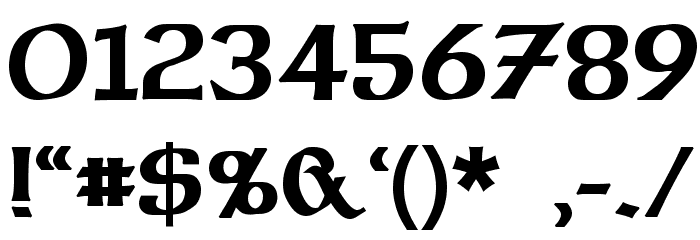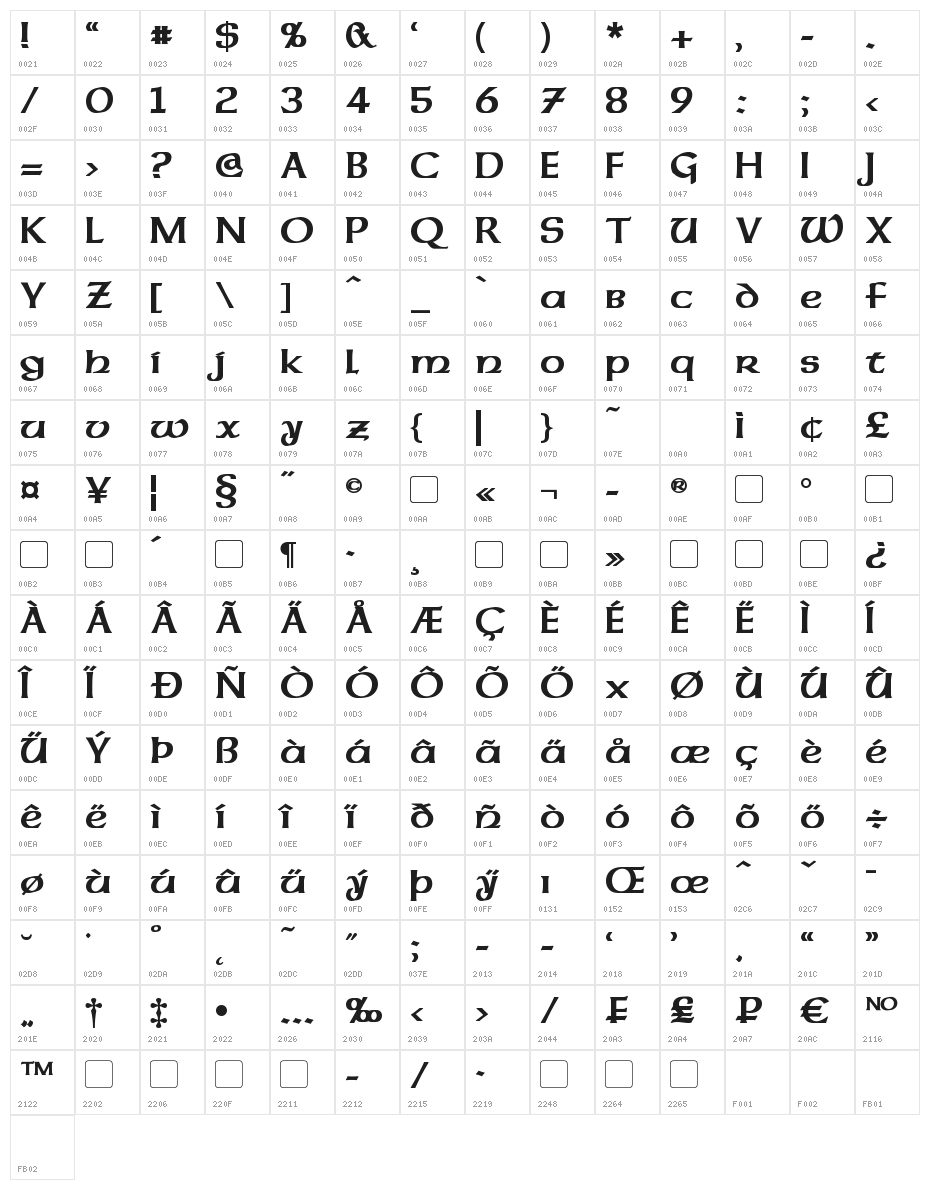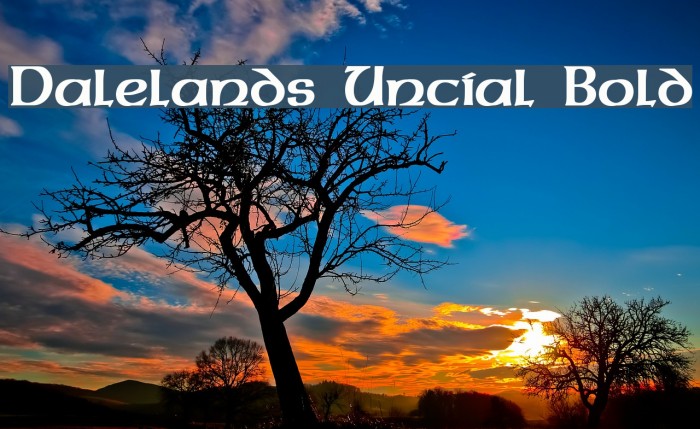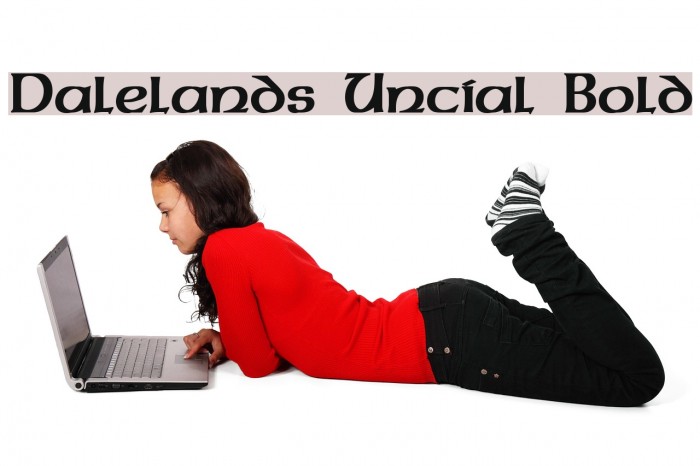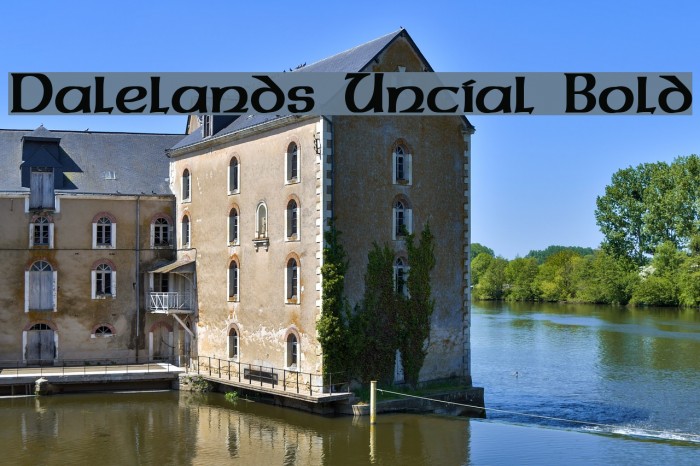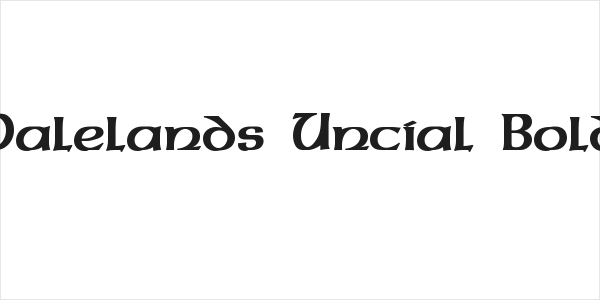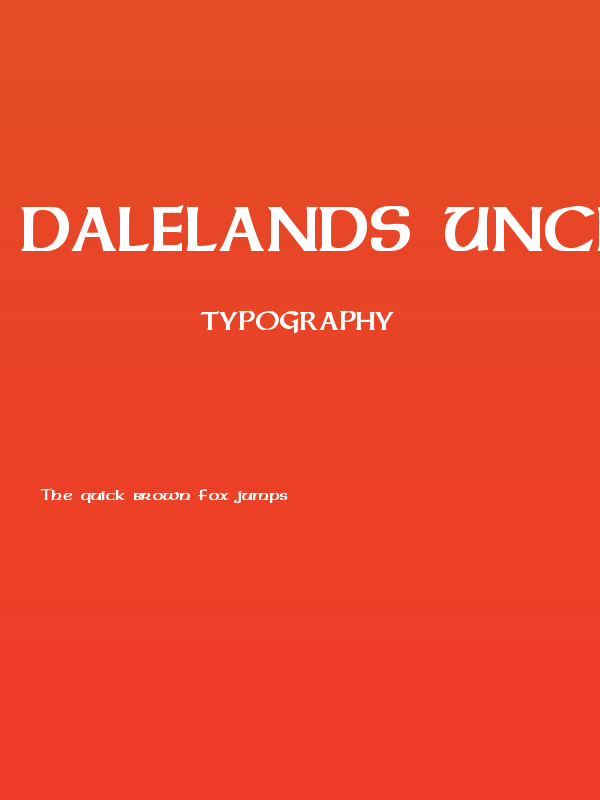
Dalelands Uncial Bold Font
Dalelands Uncial Bold Description
This font exhibits a bold and striking uncial style, reminiscent of medieval script with a modern twist. The characters are characterized by their rounded forms and distinctively sharp serifs, giving them a unique and decorative appearance. The uppercase letters are particularly bold, with a strong presence that commands attention. The lowercase letters maintain the same stylistic elements, ensuring consistency across the typeface. Numbers and special characters are designed to match the overall aesthetic, making them suitable for a variety of uses. The font's design is both historical and contemporary, making it versatile for projects that require a touch of elegance and tradition.